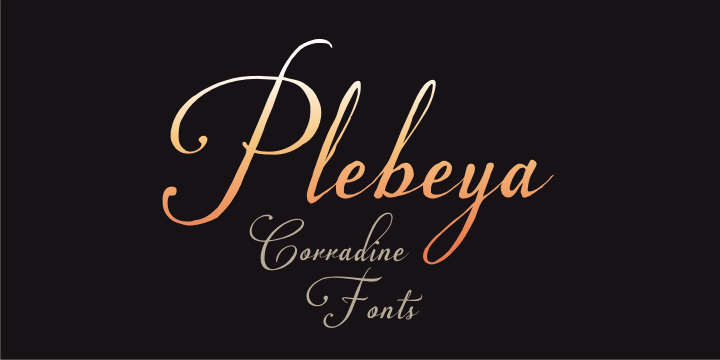
Plebeya is a script font family. This typeface has seven styles and was published by Corradine Fonts.
Plebeya is a font with an elegant and decorative style. Its calligraphic strokes are full of minute imperfections evoking real hand writing and provide it with a rustic and natural touch. Because of this we advise to preferably use it in the smaller sizes and only in larger ones when consciously you want to highlight its rustic characteristics.
Plebeya is ideal for logos and short texts design, but can also be very useful in a wide variety of applications like wedding invitations, magazines, restaurant menus, advertisement and in any project requiring a touch of elegance and exclusivity.